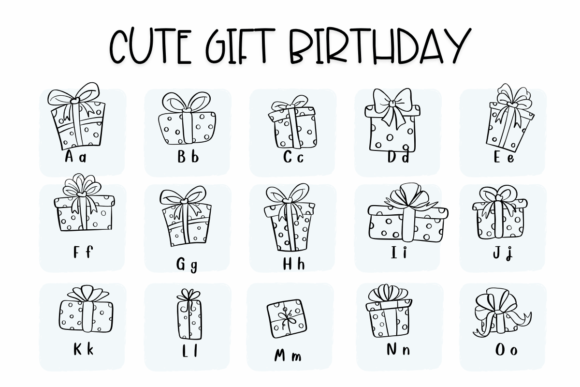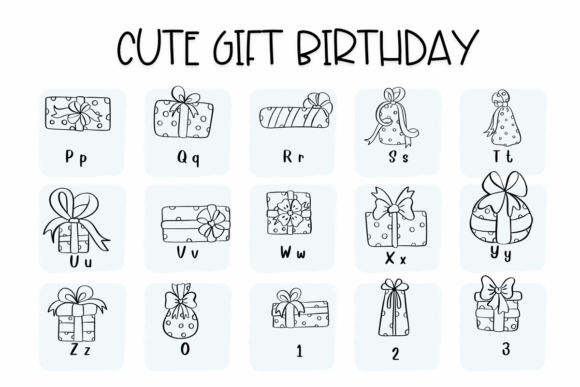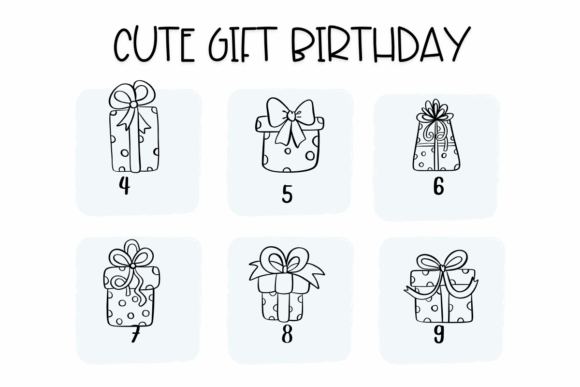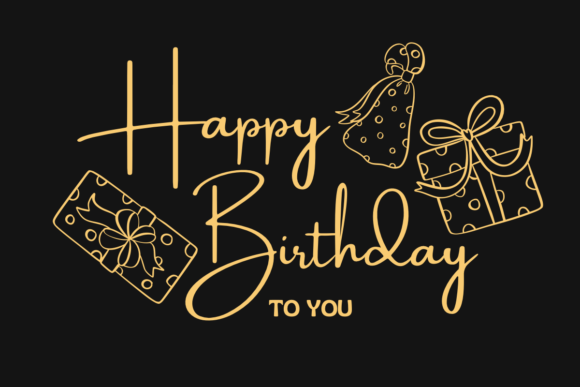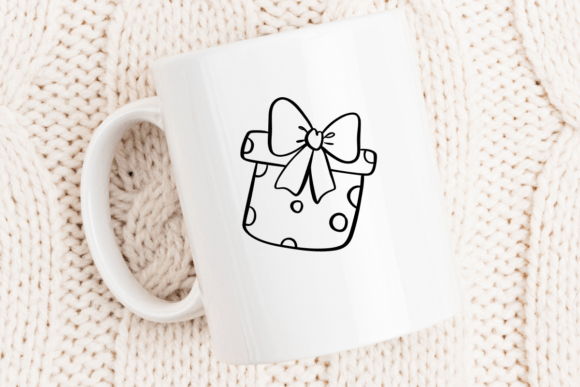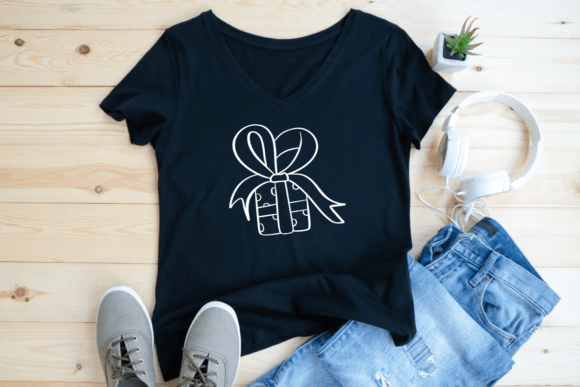
Cute Gift Birthday Font: The Perfect Addition to Your Creative Projects
Are you a designer, crafter, or DIY enthusiast looking for a unique and playful font to enhance your creative projects? Look no further than the Cute Gift Birthday font! This charming dingbats font is designed with a sketch style theme that’s sure to add a touch of whimsy and personality to your designs.
What is Cute Gift Birthday Font?
Cute Gift Birthday is a dingbats font that features a delightful sketch style theme. The font is made up of adorable illustrations and icons that can be used to add a personal touch to your creative projects. With its playful and charming design, this font is perfect for a wide range of applications, from wedding invitations and DIY crafts to decorations, logos, and more.
Key Features of Cute Gift Birthday Font
So, what makes Cute Gift Birthday font so special? Here are just a few of its key features:
- Sketch style theme: The font features a charming sketch style theme that’s perfect for adding a personal touch to your designs.
- Dingbats font: Cute Gift Birthday is a dingbats font, which means it’s made up of illustrations and icons rather than traditional letters and numbers.
- Playful and whimsical: The font has a playful and whimsical design that’s sure to add a touch of personality to your creative projects.
- Versatile: Cute Gift Birthday font can be used for a wide range of applications, from wedding invitations and DIY crafts to decorations, logos, and more.
Uses for Cute Gift Birthday Font
So, what can you use Cute Gift Birthday font for? The possibilities are endless! Here are just a few ideas to get you started:
- Wedding invitations: Add a touch of whimsy and romance to your wedding invitations with Cute Gift Birthday font.
- DIY crafts: Use the font to add a personal touch to your DIY crafts, such as scrapbooking, card making, and more.
- Decorations: Create custom decorations, such as garlands, banners, and signs, using Cute Gift Birthday font.
- Logos: Use the font to create a unique and playful logo for your business or brand.
- Social media graphics: Add a touch of personality to your social media graphics, such as Facebook posts, Instagram stories, and more.
Tips for Using Cute Gift Birthday Font
Here are a few tips for using Cute Gift Birthday font in your creative projects:
- Mix and match: Combine Cute Gift Birthday font with other fonts and design elements to create a unique and eye-catching design.
- Experiment with colors: Try out different colors and color combinations to add depth and interest to your design.
- Keep it simple: Don’t be afraid to keep your design simple and clean. Cute Gift Birthday font can be used to add a touch of personality to even the most minimalist designs.
Cute Gift Birthday font is a charming and playful dingbats font that’s perfect for adding a touch of whimsy and personality to your creative projects. With its sketch style theme and versatile design, this font can be used for a wide range of applications, from wedding invitations and DIY crafts to decorations, logos, and more. So why wait? Download Cute Gift Birthday font today and start adding a touch of cuteness to your designs!